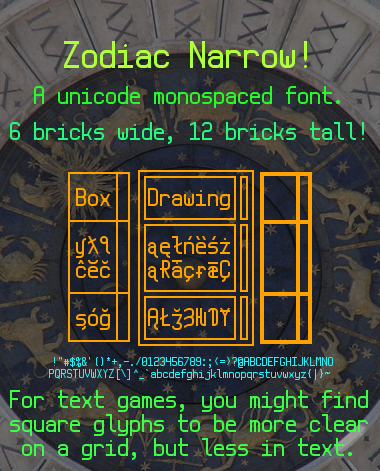
• With 6x12 pixels at size 6/8 font, this variant of Zodiac Square will fit two characters in one 12x12 square. To ensure a halved-square font, any accented glyphs from Mandrill (my monospaced, lanky, much-of-unicode font) that went above a capital A's peak were cut, but many lower-case accented glyphs stayed in. Since this is meant for a text-heavy game genre where legibility at small size is important, all of Latin Extended Additional was cut -- it was just too hard to read at small sizes, and I doubt it would be very useful in a roguelike or similar text-based game that needs halved-square glyphs. This looks pretty good with anti-aliasing, but the preview may be funny because it uses the old 2x2 filter. It's called Zodiac Narrow because of the 6x12 pixels, 12 signs of the Zodiac, more Narrow than Zodiac Square.